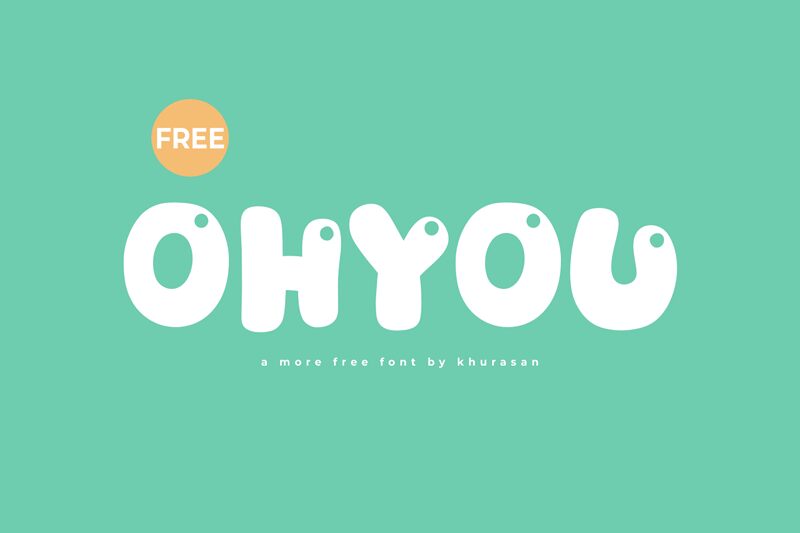
Ohyou
Ohyou is a captivating display font designed by Khurasan. With its bold, cartoonish aesthetic, Ohyou exudes a playful and energetic personality. The unique letterforms, characterized by organic curves and playful negative spaces, create a whimsical and visually engaging typeface.
Ohyou's versatility shines through its ability to seamlessly blend bold clarity with a touch of lighthearted charm. This font would thrive in a variety of design applications, from eye-catching headlines and logos to vibrant product packaging and children's materials. Its distinctive style effortlessly commands attention, making it an excellent choice for designers seeking to inject a dose of personality and playfulness into their work.